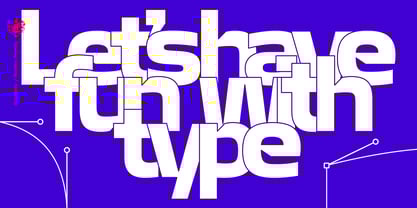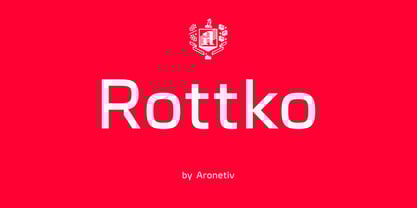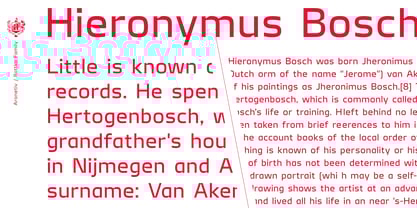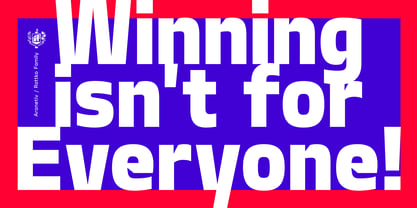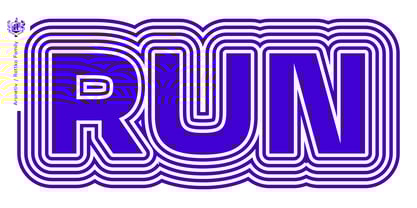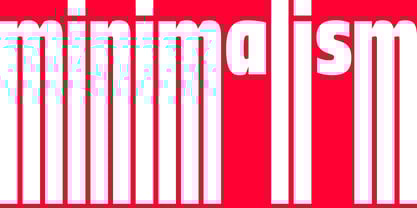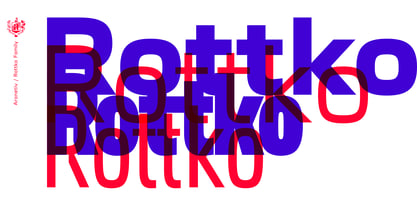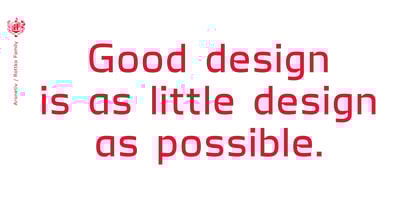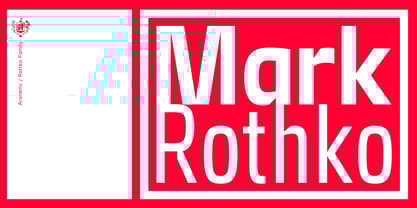
Rottko
La familia tipográfica Rottko fue diseñada por Aleksey Popovtsev y publicada por Aronetiv. Rottko contiene 12 estilos y opciones de paquete familiar.
Rottko is a strong, static grotesque. Round shapes tend to square. The smooth silhouette of the letters contrasts with the clear rhythm of the composition. Diagonal strokes are a bright accent. The font contains a standard set of Latin, mathematical symbols. Rottko is designed for poster slogans and bright headlines. This typeface suit for modern logo and branding. It's clear and memorable. The family set consist 12 style.
Aronetiv was founded in 2019 in Kyiv. It employs one person: artist and graphic designer Oleksii Popovtsev. Once Oleksii said that he likes to observe how a letter is born on the border of black and white, as shape and counter-shape create an image. This is his search and inspiration for all his works. Aronetiv develops fonts with Cyrillic and alphabets of Eastern Europe languages, to form a common European culture both in Ukraine and abroad.